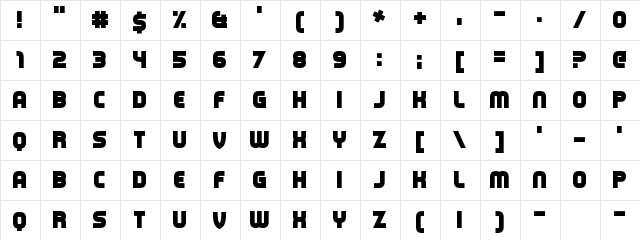
Capital Clickbait Regular
| Designer | AM |
Design Context for Capital Clickbait Typeface
Capital Clickbait offers clean, dependable letterforms without strong stylistic allegiance, making it a practical choice for designers who need flexibility.